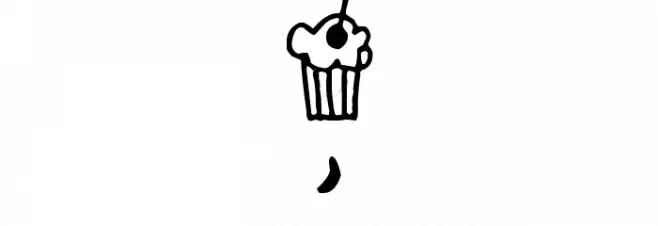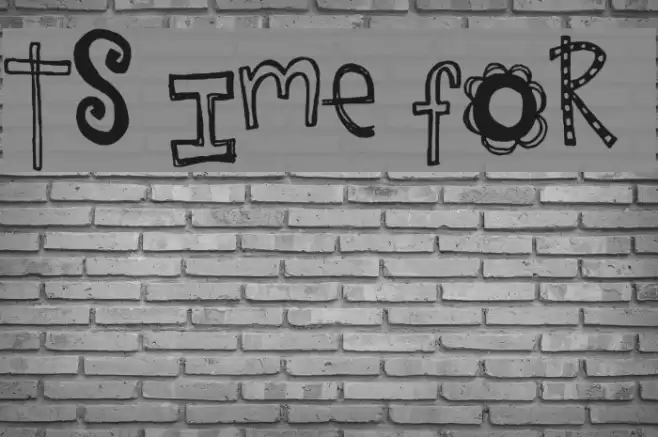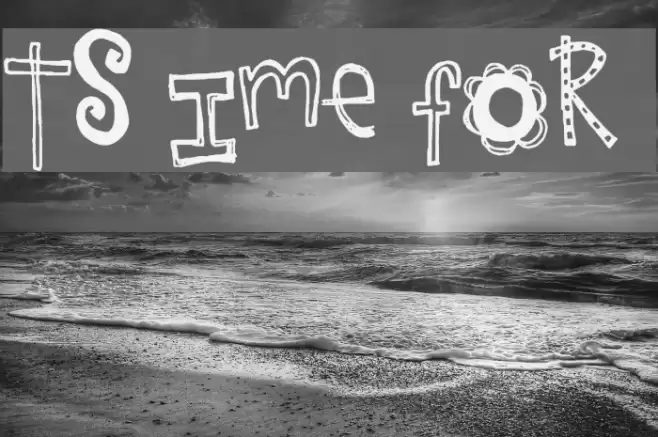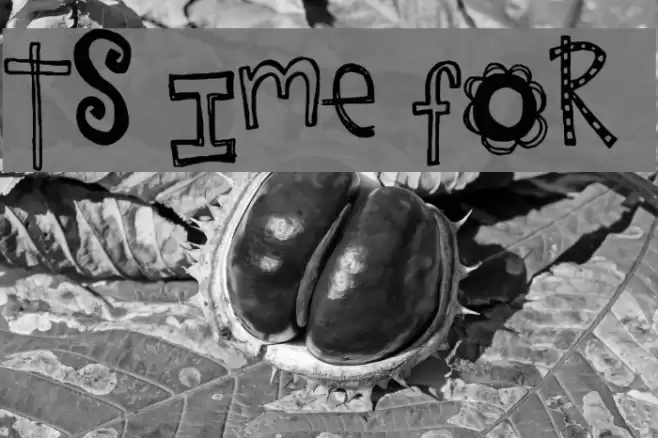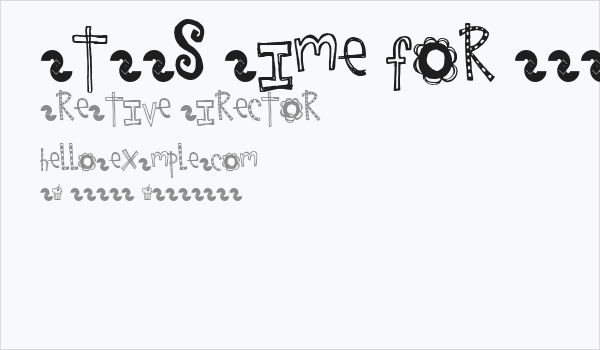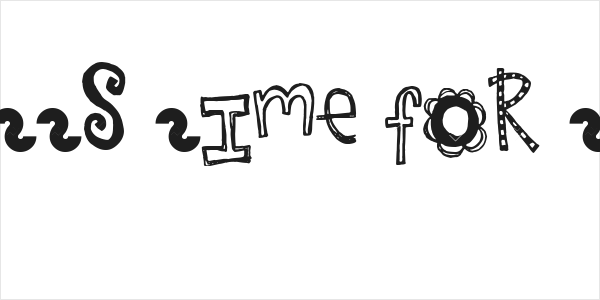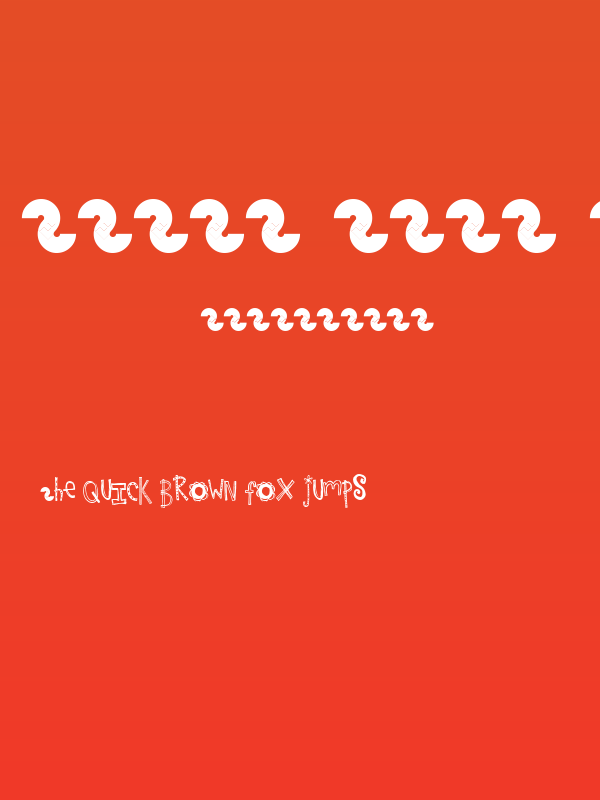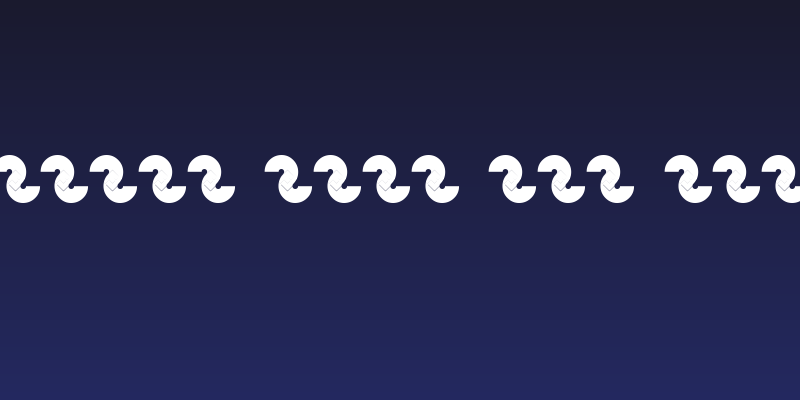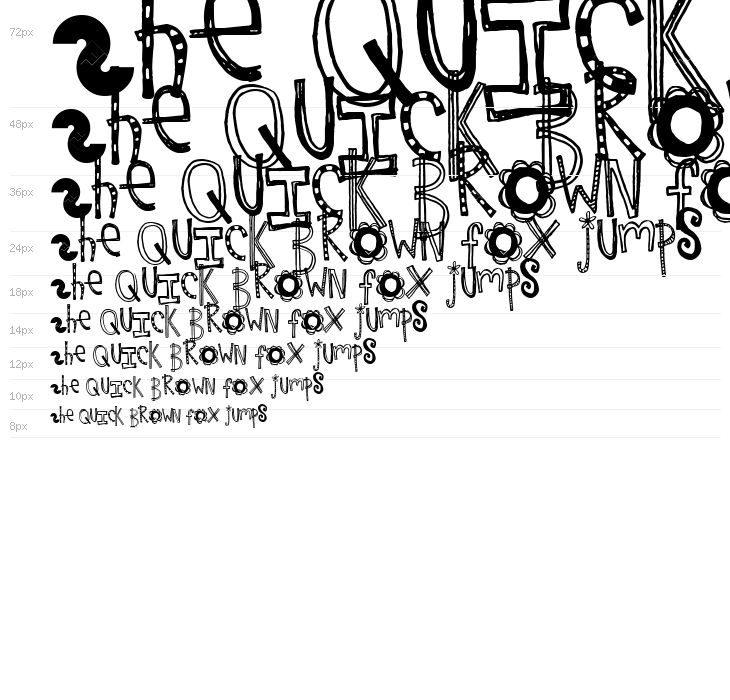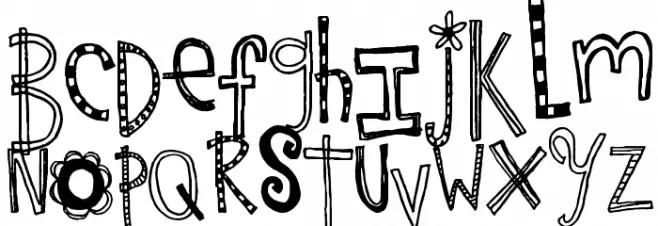
It's Time for FUN Font
It's Time for FUN Description
This playful and whimsical font features a variety of decorative elements, with each letter showcasing unique patterns such as stripes, dots, and stars. The characters are hand-drawn, giving them a quirky and informal appearance. The uppercase letters are bold and distinctive, while the lowercase letters maintain a consistent style with playful embellishments. The font includes a cupcake illustration, adding to its fun and creative theme. This font is perfect for projects that require a lighthearted and imaginative touch.
| Overall Style | Whimsical |
| Proposed Projects | Ideal for children's books, party invitations, playful branding, and creative posters. |